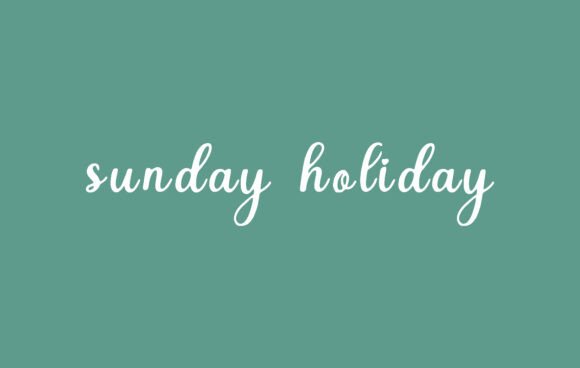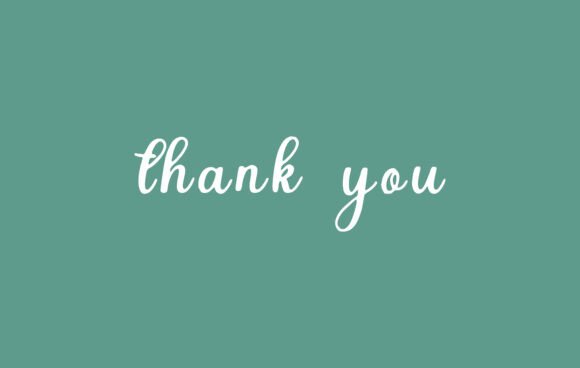
Introduction to Impacto Nova Font
Impacto Nova font is an authentic handwritten font with a romantic touch.
Key Features of Impacto Nova Font
Why Choose Impacto Nova Font?
Impacto Nova Font offers exceptional quality and versatility, making it a valuable addition to your design toolkit. Whether you’re creating for personal projects or commercial use, Impacto Nova Font delivers professional results.